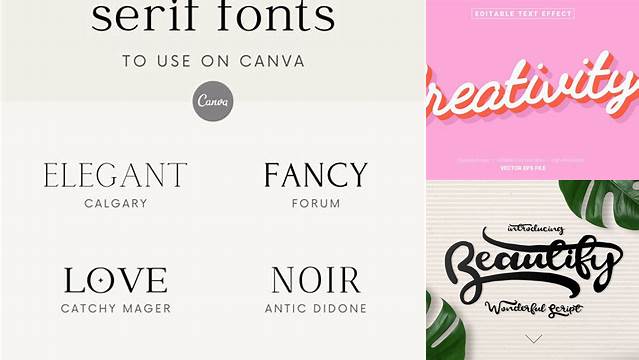
Free Fonts: Design Guide
Are you looking to elevate your design projects with unique and captivating typography? Do you want to add a touch of personality and professionalism to your work without breaking the bank? Well, you've come to the right place, guys! In this comprehensive guide, we'll dive into the exciting world of free font designs, exploring various font styles, resources, and tips to help you make the perfect choice for your next creative endeavor. From sleek and modern sans-serifs to elegant and timeless serifs, and everything in between, we'll uncover the hidden gems of the free font universe and show you how to use them effectively.
Understanding the Importance of Font Choice
Before we jump into the vast ocean of free fonts, let's take a moment to appreciate the critical role typography plays in design. Choosing the right font can be the difference between a visually appealing masterpiece and a confusing, unreadable mess. The font you select influences the overall tone, message, and impact of your design. Think about it: a playful, handwritten font might be perfect for a children's book, but it would look completely out of place on a corporate website. Similarly, a bold, futuristic font could be ideal for a sci-fi movie poster, but it wouldn't suit a wedding invitation. The font choice should always align with the project's purpose and intended audience. It's not just about aesthetics; it's about conveying the right message and creating a connection with your viewers. Choosing a font that reflects the personality and essence of your project is crucial for success. A well-chosen font can enhance readability, create a visual hierarchy, and evoke emotions, making your design more engaging and memorable. In contrast, a poorly chosen font can distract viewers, make your text difficult to read, and undermine your message. So, let's embark on this journey of font discovery and learn how to make the right choices.
Exploring Different Font Styles
The world of typography is incredibly diverse, with a wide range of font styles to choose from. Understanding these styles is essential for selecting the perfect font for your project. Let's take a closer look at some of the most popular categories:
Serif fonts are characterized by the small decorative strokes, or serifs, that extend from the ends of the letters. These fonts have a classic and traditional feel, often associated with elegance, authority, and readability. Think of fonts like Times New Roman, Garamond, and Georgia – these are the stalwarts of the serif world. Serif fonts are commonly used in print materials, such as books, newspapers, and magazines, where their readability at small sizes is highly valued. They can also add a touch of sophistication to websites and branding materials. When used effectively, serif fonts can create a sense of trust and reliability, making them a popular choice for businesses and organizations that want to project a professional image. However, it's important to use serif fonts judiciously, as they can sometimes appear too formal or stuffy for certain projects. Experimenting with different serif fonts and weights can help you find the perfect balance between tradition and modernity.
Sans-serif fonts, as the name suggests, lack the serifs found in their counterparts. These fonts have a clean, modern, and minimalist aesthetic, making them ideal for contemporary designs. Popular sans-serif fonts include Arial, Helvetica, and Open Sans. Sans-serif fonts are highly legible on screens, which makes them a favorite for websites, user interfaces, and digital publications. Their simplicity and clarity also make them a great choice for headlines and shorter blocks of text. Sans-serif fonts can convey a sense of innovation, efficiency, and approachability, making them well-suited for tech companies, startups, and brands that want to project a cutting-edge image. However, it's crucial to select sans-serif fonts carefully, as some can appear bland or generic if overused. Exploring different weights, styles, and spacing can help you create a unique and impactful look with sans-serif fonts.
Script Fonts
Script fonts mimic the fluid strokes of handwriting, adding a touch of personality and elegance to designs. These fonts range from formal calligraphy styles to casual and playful handwritten scripts. Script fonts are often used for invitations, greeting cards, logos, and other projects where a personal touch is desired. They can evoke a sense of romance, creativity, and sophistication, making them a popular choice for weddings, events, and branding materials. However, script fonts can be challenging to read in large blocks of text, so it's best to use them sparingly and for short, impactful phrases. Pair them with a simpler serif or sans-serif font for body text to ensure readability. When selecting a script font, consider the overall tone and style of your project. A formal script might be perfect for a wedding invitation, while a more casual script could be ideal for a blog header or social media graphic.
Decorative Fonts
Decorative fonts are the wildcards of the typography world, encompassing a vast array of styles that don't fit neatly into the other categories. These fonts are often highly stylized and expressive, designed to make a statement. Decorative fonts can range from vintage and retro styles to futuristic and abstract designs. They are often used for logos, posters, headlines, and other projects where visual impact is paramount. Decorative fonts can add a unique and memorable touch to your designs, but they should be used with caution. Overusing decorative fonts can create a cluttered and overwhelming look, so it's best to use them sparingly and for specific purposes. Pair them with simpler fonts for body text to maintain readability and balance. When selecting a decorative font, consider the overall tone and message of your project. A playful, cartoonish font might be perfect for a children's book, while a bold, geometric font could be ideal for a technology brand.
Where to Find Free Font Designs
Google Fonts is a massive library of open-source fonts that are completely free to use, even for commercial purposes. With hundreds of fonts to choose from, ranging from classic serifs and sans-serifs to stylish scripts and decorative designs, Google Fonts has something for everyone. The fonts are easy to browse, preview, and download, and they can also be embedded directly into websites using Google's web font service. Google Fonts is a fantastic resource for designers of all levels, offering a wide range of high-quality fonts that are both accessible and versatile. The platform is constantly updated with new fonts, so there's always something fresh to discover. Whether you're looking for a reliable workhorse font for body text or a unique display font for a headline, Google Fonts is a great place to start your search. The open-source nature of the fonts also means that you can modify and customize them to suit your specific needs.
Font Squirrel is another excellent resource for free fonts, offering a curated collection of high-quality, commercially licensed fonts. The site handpicks fonts from various designers and foundries, ensuring that everything available is top-notch. Font Squirrel also has a handy Font Identifier tool that can help you identify a font from an image, which is a great feature for designers who need to match fonts in existing designs. The website's interface is clean and user-friendly, making it easy to browse and discover new fonts. Font Squirrel also offers a web font generator, which allows you to convert fonts into various formats for use on websites. This is a valuable tool for ensuring that your chosen fonts render correctly across different browsers and devices. The site's commitment to quality and its focus on commercial-use licenses make Font Squirrel a reliable choice for designers who need fonts for professional projects.
DaFont is a popular website with a vast collection of free fonts, but it's important to note that the licensing terms vary depending on the font. Some fonts are free for personal use only, while others are free for commercial use. Always check the license agreement before using a font from DaFont in your projects. Despite the licensing caveats, DaFont is a great resource for finding unique and quirky fonts that you might not find elsewhere. The site's interface is a bit more cluttered than Google Fonts or Font Squirrel, but the sheer volume of fonts available makes it worth exploring. DaFont is particularly strong in the areas of decorative and script fonts, offering a wide range of styles to choose from. The site also has a useful preview tool that allows you to see how a font looks with your own text. When using DaFont, it's crucial to be diligent about checking the license terms to avoid any copyright issues. However, with a little caution, DaFont can be a valuable addition to your font resource arsenal.
Conclusion: Unleash Your Creativity with Free Font Designs
Free font designs offer a fantastic opportunity to elevate your creative projects without spending a fortune. By understanding the different font styles, exploring the vast resources available, and following the tips outlined in this guide, you can confidently choose and use fonts that perfectly complement your designs. So go ahead, guys, unleash your creativity and let your typography speak volumes! Remember, the right font can make all the difference in conveying your message and creating a lasting impression. Happy designing!